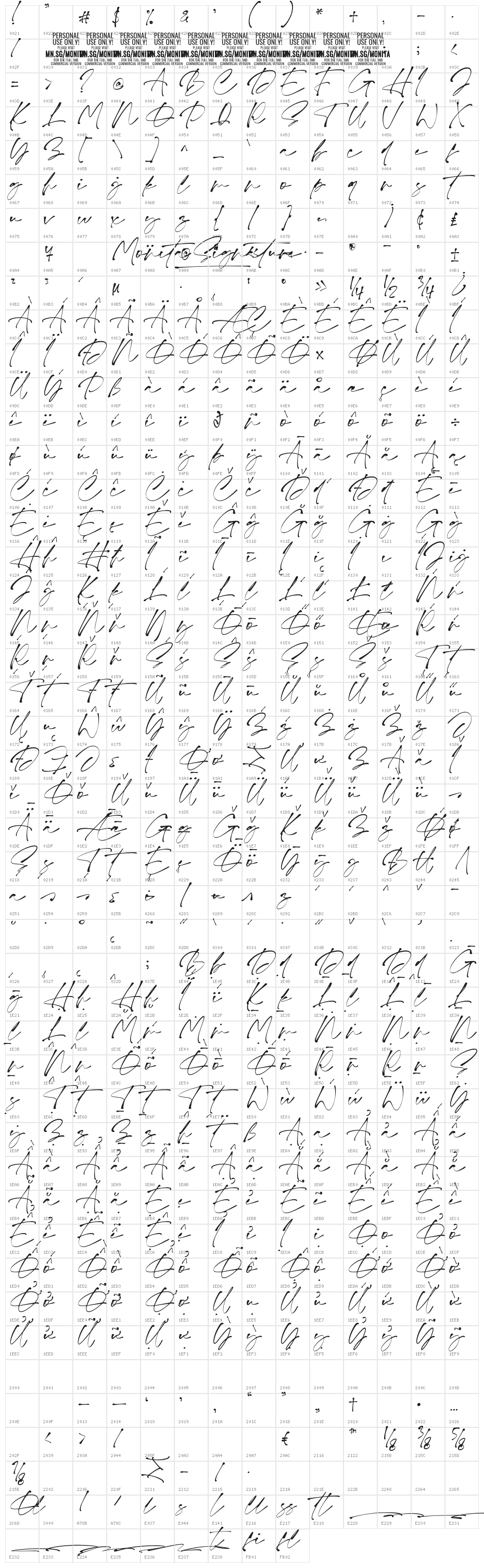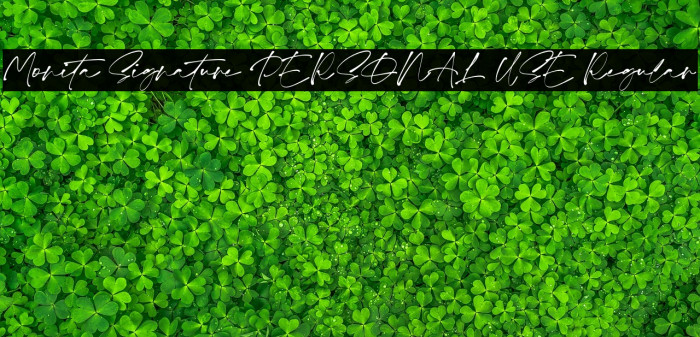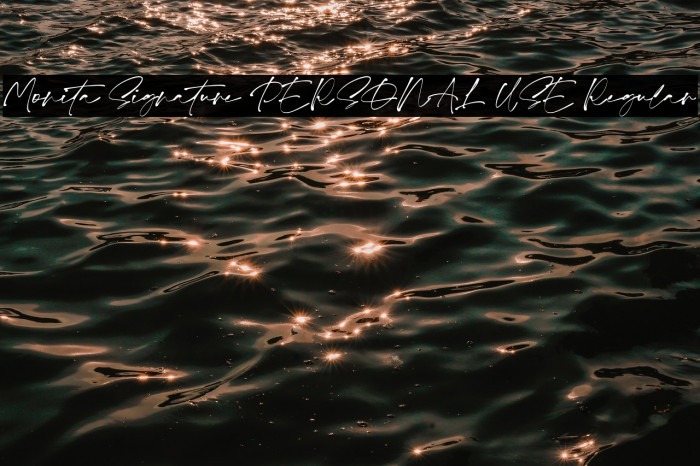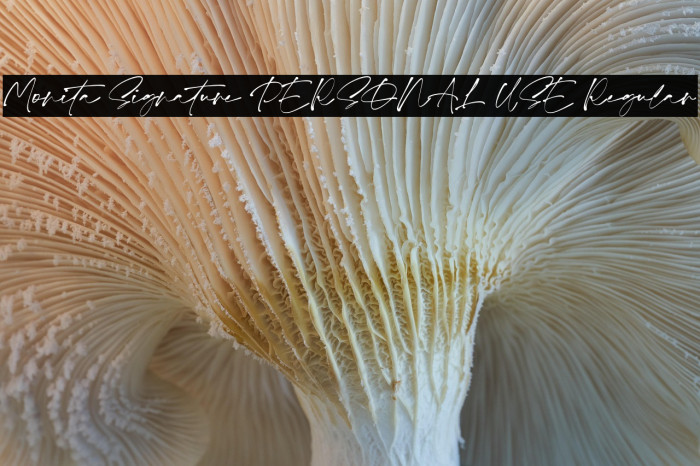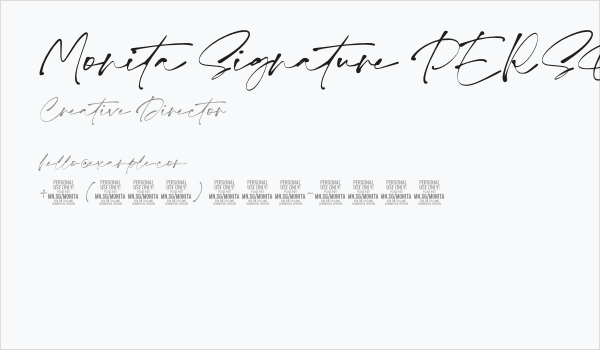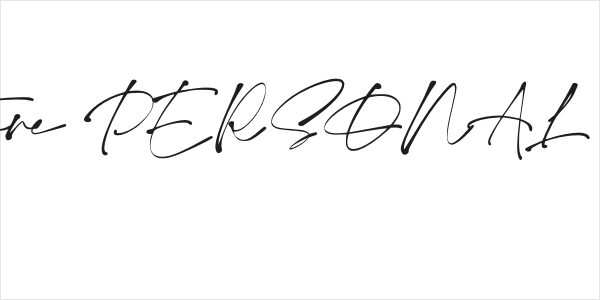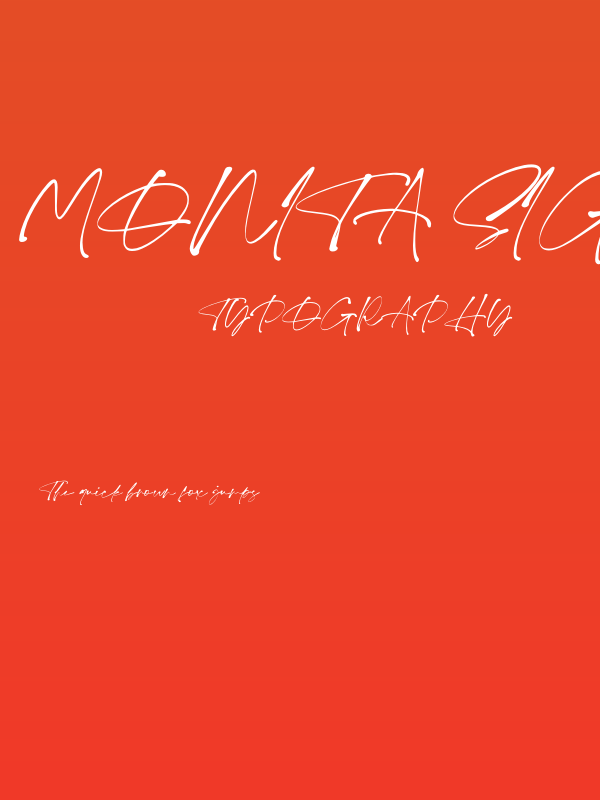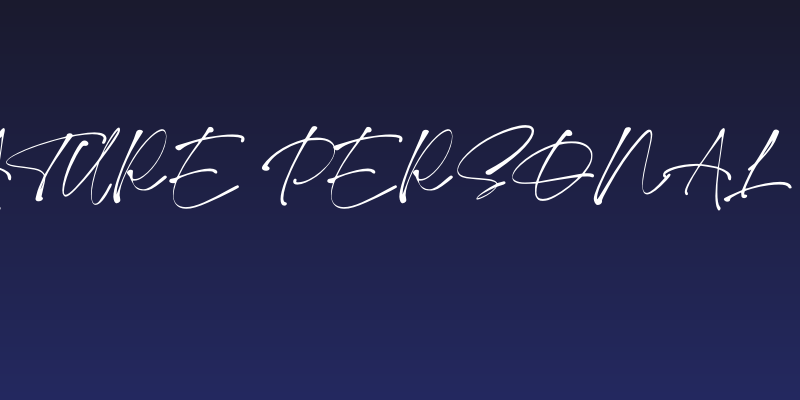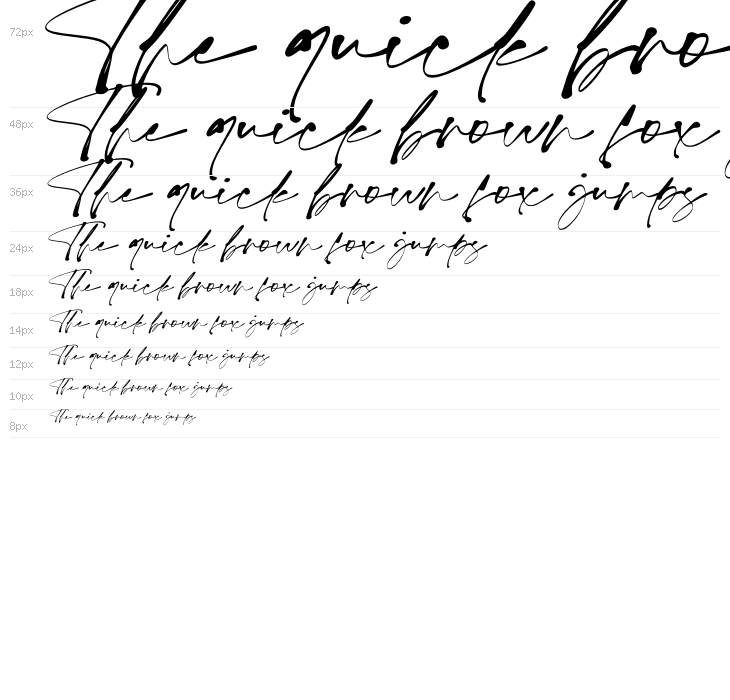
Monita Signature PERSONAL USE Regular Font
Monita Signature PERSONAL USE Regular Description
This font exudes a sophisticated and elegant handwritten style, characterized by flowing, cursive strokes that mimic the fluidity of a personal signature. The letters are connected seamlessly, creating a sense of continuity and grace. The uppercase letters are bold and prominent, while the lowercase letters maintain a consistent, flowing rhythm. The numerals and special characters are crafted with the same attention to detail, ensuring a cohesive look across all text. This font is ideal for projects that require a personal touch, such as invitations, greeting cards, or branding materials. Its unique style makes it stand out, adding a touch of class and individuality to any design.
| Overall Style | Elegant, Handwritten |
| Use Case | Logos, Invitations, Personal projects |
| Proposed Projects | Ideal for invitations, greeting cards, branding materials, and personal projects. |